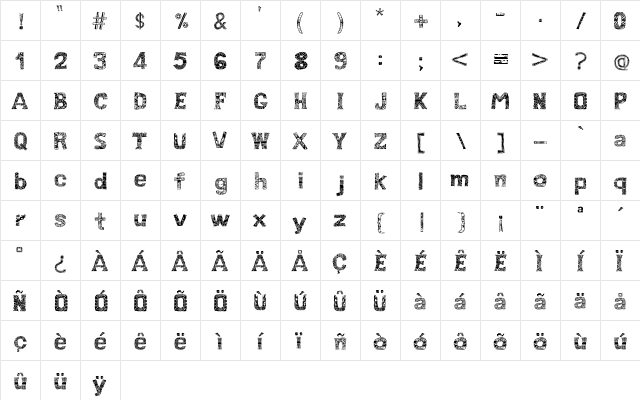
Maningue Staile Maningue
| Foundry | Atila Milanio |
| Designer | Atila Milanio |
Design Context for Maningue Staile Typeface
Maningue Staile is a composed and adaptable typeface that performs quietly and consistently across a wide range of design contexts.